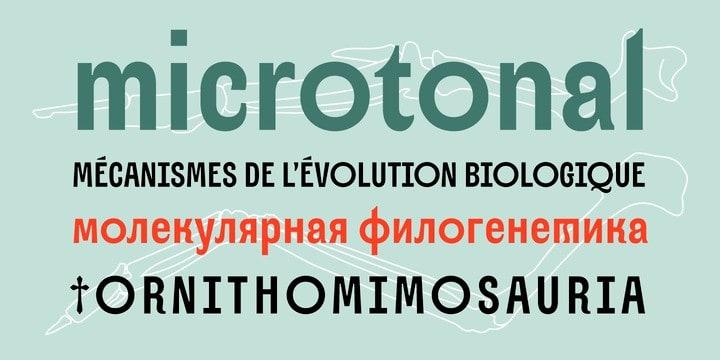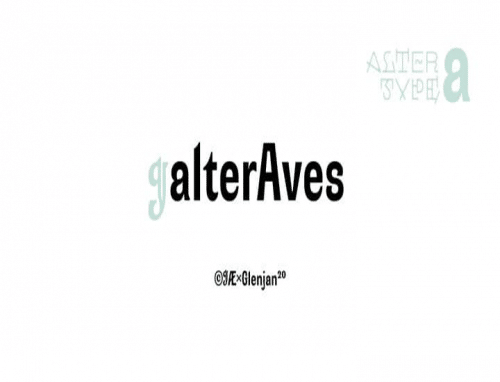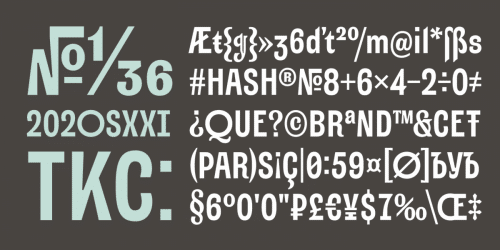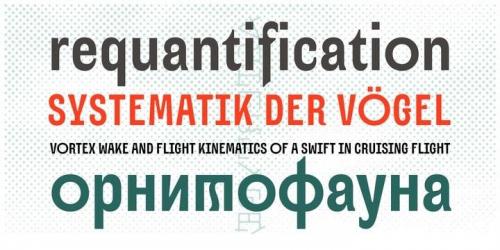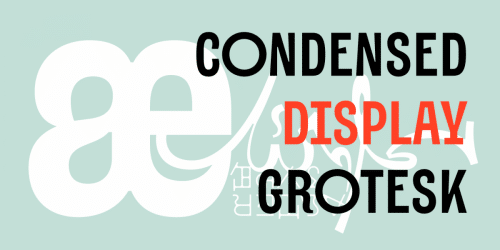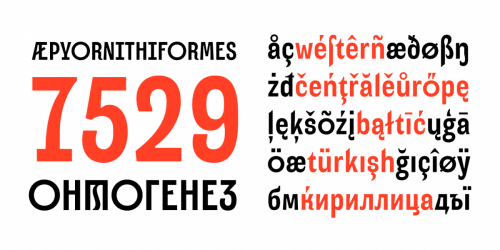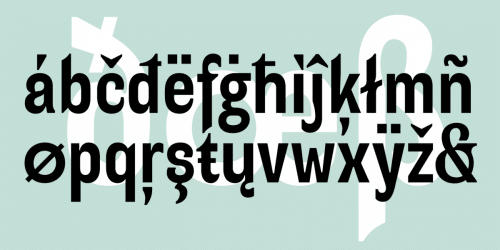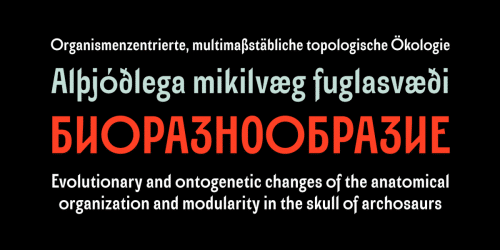
Alter Aves type is the first part of AlterType project – the serie of small display typefaces based on letterings, left-off types and altered foundry typefaces.
Alter Aves is display condensed sans-serif typeface with couple of geometric-round letters, serif-styled elements and flat brush strokes.
It supports Latin Extended-A (Western, Central Europe, Baltic, Turkish) and Cyrillic encoding languages and minimal opentype features – oldstyle digits, case sensitive punctuation, small-numeric forms and scripted fractions.
- Designer: Elena Kowalski, A. Ego